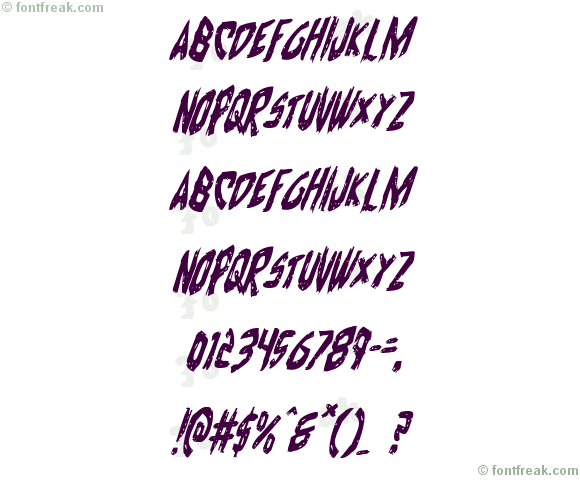
Cyrus the Virus Condensed Italic
About Cyrus the Virus Condensed Italic
Cyrus the Virus Condensed Italic, designed by Daniel Zadorozny, is a striking display font that captivates with its bold, edgy aesthetic. This typeface belongs to the decorative category, making it perfect for projects that aim to grab attention. Its design features a condensed structure with a dynamic italic slant, giving it an energetic feel. The stroke weight varies, creating a sense of movement and urgency, while the irregular spacing adds to its distinctive character. The font's jagged edges and unique shapes evoke a sense of chaos, making it an excellent choice for projects that require a bold statement.
Ideal use cases for Cyrus the Virus Condensed Italic include eye-catching movie posters, vibrant event flyers, and dramatic album covers. It can also be effectively used in branding materials for businesses looking to convey a sense of creativity and innovation. Graphic designers will appreciate its versatility, while small business owners can leverage this font to stand out in a crowded market. Content creators will find that the font adds an element of excitement to their visual materials, making it more appealing to their audience.
Cyrus the Virus Condensed Italic font free download offers an opportunity for designers and creators to explore its unique style without financial constraints. Its distinctive visual characteristics and energetic vibe make it a standout choice for any project that aims to draw attention and evoke emotion. Whether used in digital or print formats, this font ensures that your message is not only seen but also felt, making it an invaluable addition to any designer's toolkit.